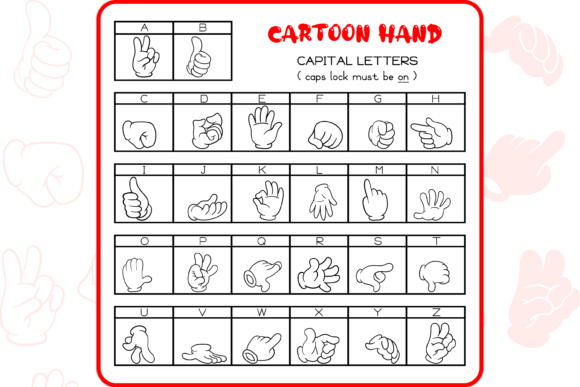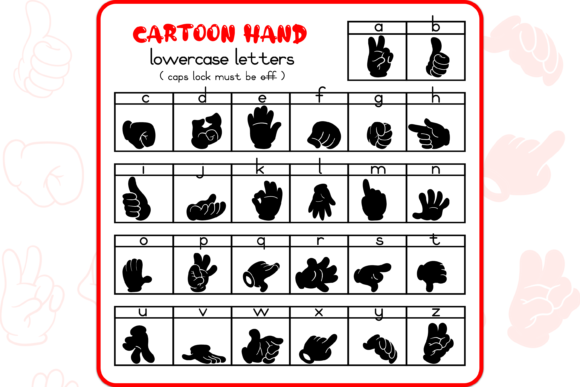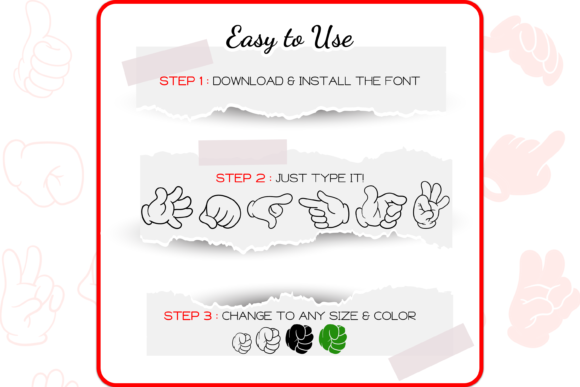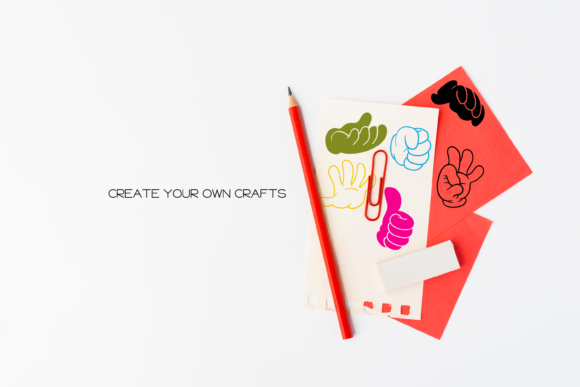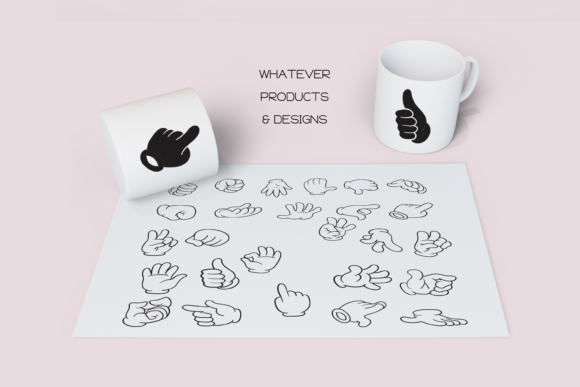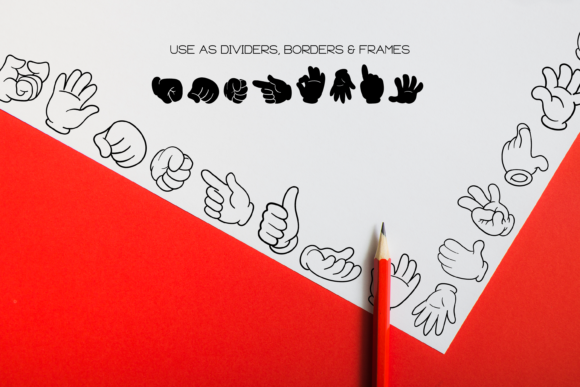
Introducing Cartoon Hand Font: The Ultimate Dingbats Font for Designers and Crafters
Are you tired of using the same old fonts in your designs? Do you want to add a touch of fun and whimsy to your creations? Look no further than Cartoon Hand Font, a cool, trendy, and incredibly useful dingbats font that’s sure to elevate your font library.
What is Cartoon Hand Font?
Cartoon Hand Font is a unique and versatile dingbats font that’s perfect for designers, crafters, and anyone looking to add a playful touch to their work. This font features a wide range of hand-drawn illustrations, including hands, fingers, and other gestures, that can be used to convey emotions, actions, and ideas in a fun and creative way.
Why is Cartoon Hand Font so Useful?
No matter the topic or theme, Cartoon Hand Font is an incredibly asset to your fonts’ library. Whether you’re designing a children’s book, creating a social media graphic, or crafting a handmade card, this font has the potential to add a touch of personality and whimsy to your work.
Here are just a few reasons why Cartoon Hand Font is so useful:
- Versatility: Cartoon Hand Font can be used in a wide range of design projects, from digital graphics to print materials.
- Uniqueness: This font features a unique and distinctive style that’s sure to stand out from the crowd.
- Emotional Connection: The hand-drawn illustrations in Cartoon Hand Font can be used to convey emotions and create a connection with your audience.
How to Use Cartoon Hand Font
Here are a few ideas for using Cartoon Hand Font:
- Social Media Graphics: Use Cartoon Hand Font to create fun and engaging social media graphics, such as Facebook posts, Twitter headers, and Instagram stories.
- Handmade Cards: Add a personal touch to your handmade cards with Cartoon Hand Font.
- Children’s Books: Use Cartoon Hand Font to create engaging and interactive children’s books.
Tips and Tricks for Getting the Most out of Cartoon Hand Font
Here are a few tips and tricks for getting the most out of Cartoon Hand Font:
- Experiment with Different Sizes: Try using Cartoon Hand Font in different sizes to create visual interest and hierarchy.
- Combine with Other Fonts: Combine Cartoon Hand Font with other fonts to create a unique and eye-catching design.
- Use in Combination with Images: Use Cartoon Hand Font in combination with images to create a fun and engaging design.
In conclusion, Cartoon Hand Font is a cool, trendy, and incredibly useful dingbats font that’s perfect for designers, crafters, and anyone looking to add a playful touch to their work. With its versatility, uniqueness, and emotional connection, Cartoon Hand Font is sure to elevate your font library and take your designs to the next level.